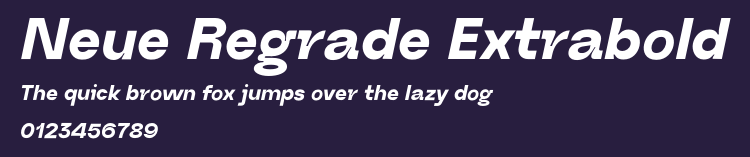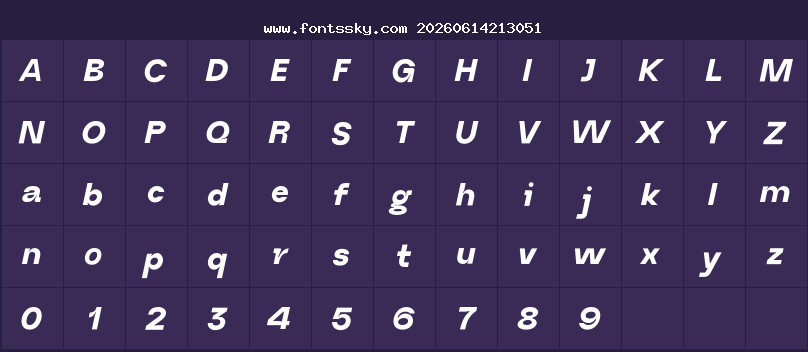
• Font Name: Neue Regrade Extrabold
• Full Font Name: Neue Regrade ExtraBold-Italic
• Designer: József Ungvári
About Neue Regrade Extrabold.otf
Neue Regrade Extrabold.otf is a modern, elegant sans-serif font designed for ultimate readability and visual harmony. Perfect for branding, headlines, web design, and print materials.